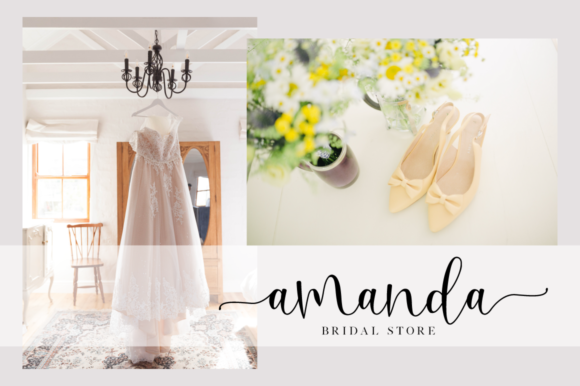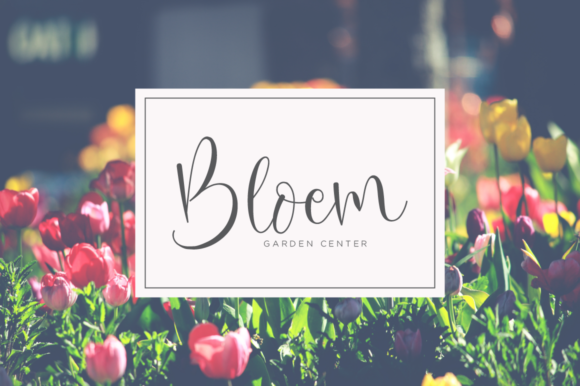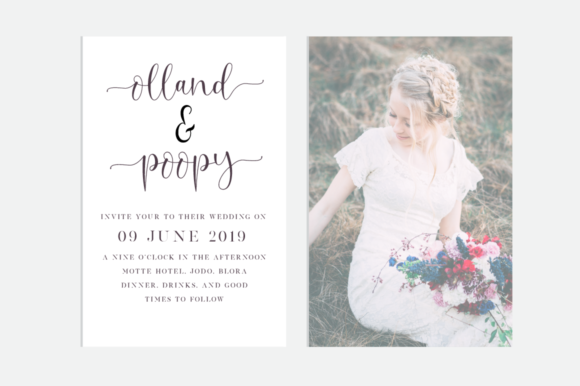
Introduction to Oh Beloved Font
Do you remember that moment when you’re working on a creative project, and you’re struggling to find the perfect font to convey your message? The one that will make your design stand out, and leave a lasting impression on your audience? For designers, finding the right font can be a daunting task, but trust me, it’s worth the effort.
Enter the Oh Beloved Font, a stunning script font that exudes elegance and sophistication. With its classy, modern look, this font is a game-changer for any design project. Whether you’re working on a branding campaign, a wedding invitation, or a social media post, Oh Beloved Font is the perfect addition to your design resource arsenal.
Key Features of Oh Beloved Font
- Unique and elegant script font perfect for creative projects and design resources.
- Perfect for adding a touch of elegance and sophistication to wedding invitations, greeting cards, and other design projects.
- Includes a comprehensive character set, including uppercase and lowercase letters, numbers, and punctuation marks.
Honest Review: Oh Beloved Font
As a designer, I’m always on the lookout for high-quality design resources to elevate my creative projects. Recently, I came across the Oh Beloved Font, which offers a unique and elegant feel that’s perfect for various designs.
- ✨ High-quality typography with a distinctive flair that adds a touch of sophistication to any project.
- ⚠️ Limited character set, which might be a concern for designers working on projects requiring extensive text content.
- ⚠️ Not suitable for bold or large-scale typography, as it may lose its delicate charm.
Overall, the Oh Beloved Font is a great design resource for designers looking to add a touch of elegance to their creative projects. While it has some limitations, its unique character and high-quality typography make it a valuable addition to any design library.
Tips for Getting the Most Out of Oh Beloved Font
To get the most out of Oh Beloved Font, experiment with different font sizes, colors, and combinations. This will help you unlock the font’s full potential and create unique designs.
Oh Beloved Font is commonly used in wedding invitations, social media graphics, and branding materials. Its elegant and sophisticated design makes it perfect for high-end designs and creative projects.